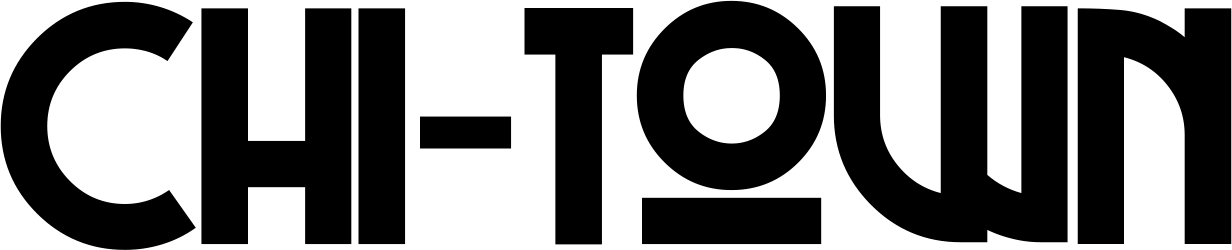
Chi-Town Font
These American bold fonts are so common but Chi-Town is coming with a special look. You can apply it to various types of projects, such as; apps, magazines, book covers, and whatnot. Why don’t you try it yourself? Click on the download button right now and see how astonishing it appears. To get more Art Deco fonts, browse our website.